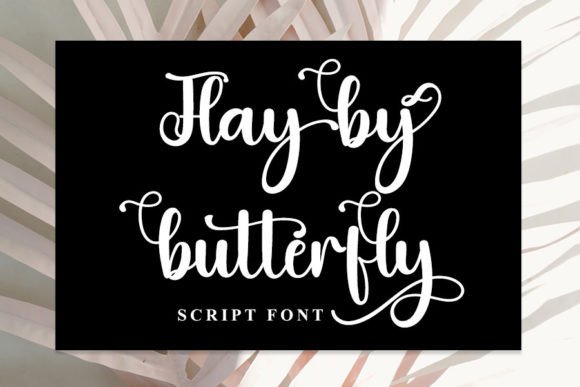
Welcome to a world of elegance and sophistication, where written words transform into breathtaking works of art. Allow us to introduce you to Flay by Butterfly Font, the ultimate script font family that exudes timeless grace. Gaze upon its impeccable form, crafted with precision and passion, drawing inspiration from the enduring legacy of classic calligraphy.
Unleash your creativity and elevate your designs with Flay by Butterfly Font, the epitome of elegance and class. Each letter dances across the page with a fluidity that captivates the eye, adding a touch of refinement to your every creation. Its contemporary atmosphere speaks to the modern sensibility, while its deep-rooted classicism ensures it stands the test of time.
Imagine your business card, that small yet powerful representation of your brand, adorned with the stunning script of Flay by Butterfly Font. Its beautiful curves and confident strokes will undoubtedly leave a lasting impression, setting you apart from the ordinary and establishing you as a leader in your field.
Let Flay by Butterfly Font be the voice of your brand, expressing your unique story with an eloquence that resonates. From elegant wedding invitations to eye-catching social media posts, this versatile font family adapts seamlessly to a multitude of purposes, enhancing your designs with an air of sophistication.
But Flay by Butterfly Font is more than just a font; it's an experience. It's the feeling of holding a handwritten letter from a loved one, the warmth of a heartfelt message penned with care. It's the joy of creating something truly unique, something that reflects your innermost thoughts and aspirations.
Embrace the boundless creative possibilities that await you with Flay by Butterfly Font. Let your imagination soar and watch as your words take on a life of their own, transforming into exquisite works of art. It's time to elevate your designs to new heights and leave an indelible mark on the world.